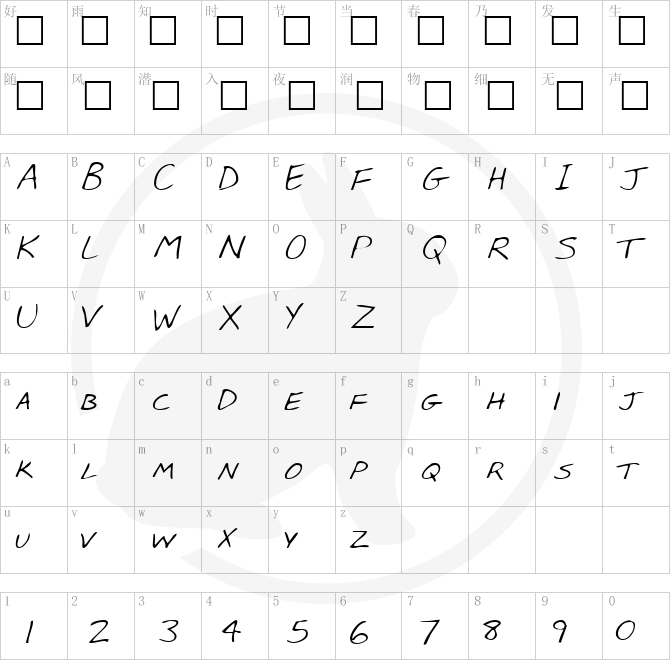
- Font Name:BabcocksHand
BabcocksHand-Regular-copy-3-.ttf is a very beautiful artistic font, BabcocksHand-Regular-copy-3-.ttf is widely used in the design and printing of various books and pictures,BabcocksHand-Regular-copy-3-.ttf has a strong visual impact,BabcocksHand-Regular-copy-3-.ttf is a commonly used font in newspapers, magazines and books, and is used in posters, e-commerce Poster design, store design, logo design, font design and other fields.BabcocksHand-Regular-copy-3-.